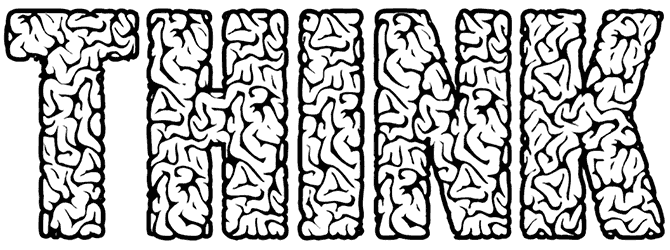
Think Font
Meet this decorative font with its unique and weird face that is able to freak your viewers out. As a horror font, Think has brain texture bold letters with an evil and crazy vibe. Think doesn’t have lowercase letters, numbers, or even most of the punctuation marks, but it works great in displaying your designs, from scary flyers to comics.
Three overlapping fonts.